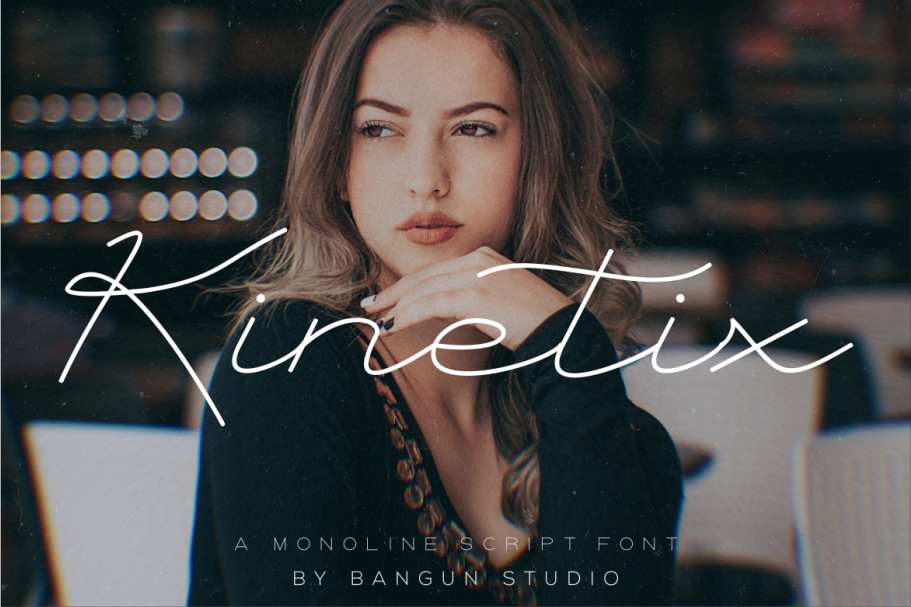
Kinetix - A Monoline Script Font
Kinetix - A Monoline Script Font is a script font made by a Bangun Studio. It flows freely, feminine, fashionable and friendly. Kinetix is perfect for fashion, e-commerce brands, trendy blogs, or any business that wants to look classy and chic!